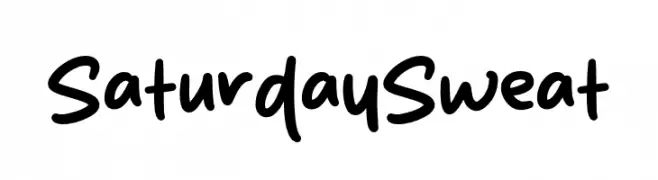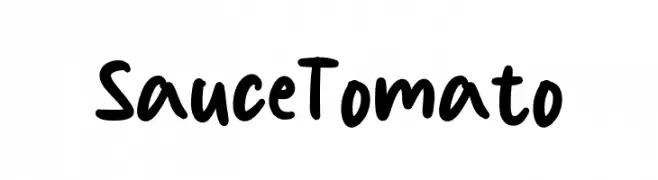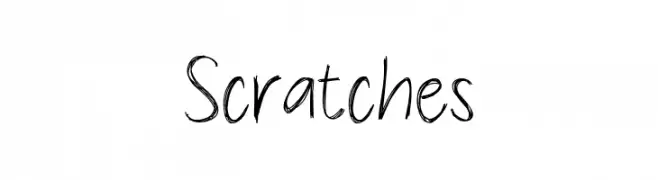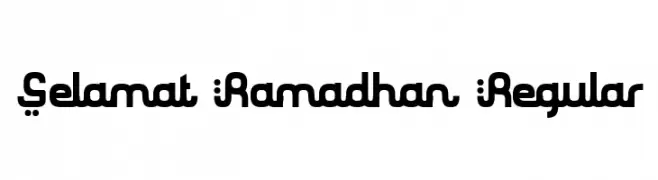
• Samatha
A bold, expressive handwritten font with a casual and modern style.
• Saturday Sweat
A bold, handwritten font with a casual and friendly vibe.
• Sauce Tomato
A playful, bold handwritten font with rounded strokes and a casual style.
• Scissor Madness DEMO Regular
A playful, bold font with a hand-cut, whimsical design.
• Scratches
A sketch-like, hand-drawn font with dynamic and irregular strokes.
• Screem House
A playful, handwritten font with an informal and friendly style.
• Selamat Ramadhan Regular
A modern, geometric font with bold, rounded shapes and consistent stroke widths.
• Shade June Free Trial
A bold, textured font with a hand-drawn, sketch-like appearance.
• Sheep
A bold, playful handwritten font with smooth, rounded letterforms.
• Shinlock
A lively, handwritten-style font with bold, expressive strokes.